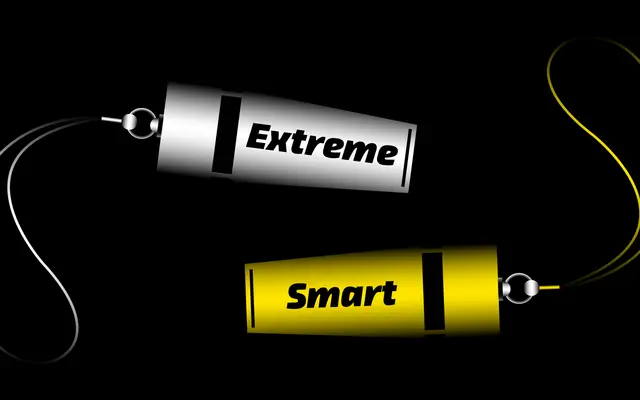
Thicker
Zetafonts · Francesco Canovaro, Andrea Tartarelli · 2019
A geometric sans spanning ten weights from Thin to Extrablack, built around the muscular proportions of sports typography with a nod to Novarese's Eurostile.
Designed by Francesco Canovaro and Andrea Tartarelli, Thicker began at the extrablack end of the weight range before being extended downward into lighter cuts where vintage-inspired proportions and slightly squared forms emerge. Three alternate italic forms with variable slant add the dynamism expected of sports and advertising work. The family covers 44 styles including Inline and Destroy variants, with two variable fonts spanning the full weight axis, and a character set of over 900 glyphs across Latin, Greek and Cyrillic covering 218 languages.
A geometric sans-serif with squared, slightly rounded terminals drawing on Eurostile's proportions, built for high-impact display use in sports and advertising contexts.